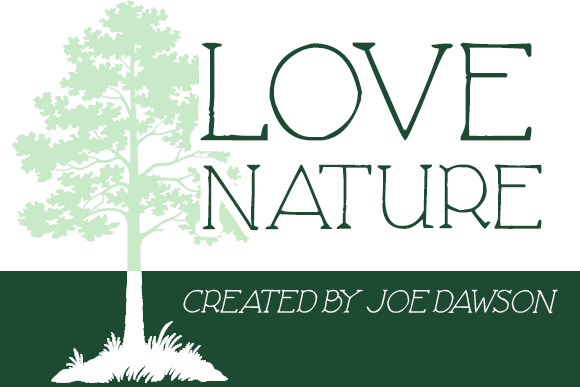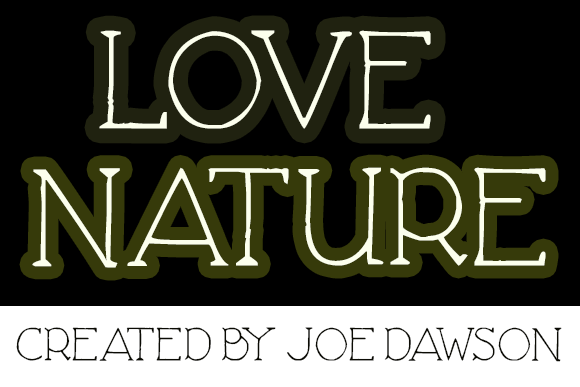
Introduction to Love Nature Font
As a designer, there’s nothing quite like that moment when a new font sparks inspiration and sets your creative project in motion. For me, it was stumbling upon the Love Nature Font – a playful and organic serif font that immediately added a touch of whimsy to my design board.
I was immediately drawn to its effortless charm and the way it effortlessly elevates any design to a new level. The Love Nature Font is a true gem for designers looking to add a little extra magic to their work. With its high-quality design and transparent background, it’s a valuable resource for any creative project.
Key Features of Love Nature Font
- High-quality design resource perfect for creative projects, including invitations, greeting cards, and more.
- Features a transparent background, allowing for easy layering and customization in your design.
- Unique characteristics include a natural, handwritten feel and a wide range of ligatures and swashes.
- Designed to be versatile and suitable for a variety of design styles, from rustic to elegant.
- Perfect for designers looking for a high-quality, free design resource to elevate their creative project.
Honest Review: Love Nature Font
I recently had the chance to work with the Love Nature Font for a creative project, and I’m excited to share my honest review.
First off, the Love Nature Font is a high-quality design resource that’s perfect for any project that requires a natural, earthy feel. It’s a free download, which is always a bonus in my book.
- ✨ The font has a beautiful, hand-drawn feel that’s perfect for creative projects.
- ✨ It’s incredibly versatile and can be used for a wide range of design applications.
- ✨ The transparent background makes it easy to use with any design element.
- ⚠️ The font can be a bit difficult to read at smaller sizes, so be sure to test it out before using it in a project.
- ⚠️ It’s not as comprehensive as some other fonts, so you may need to use additional fonts to achieve the look you want.
Overall, I’m really impressed with the Love Nature Font. It’s a great addition to any designer’s toolkit, and I would definitely recommend it for any creative project.
The Love Nature Font is a high-quality, free download design resource perfect for your next creative project. With its unique and elegant design, this font is sure to add a touch of sophistication to any document or design.
To get the most out of the Love Nature Font, use it with a transparent background to create a beautiful and elegant design. Experiment with different font sizes and styles to add depth and interest to your design.
The Love Nature Font is perfect for a variety of creative projects, including wedding invitations, birthday cards, and social media graphics. Its elegant design makes it ideal for formal events and corporate branding.